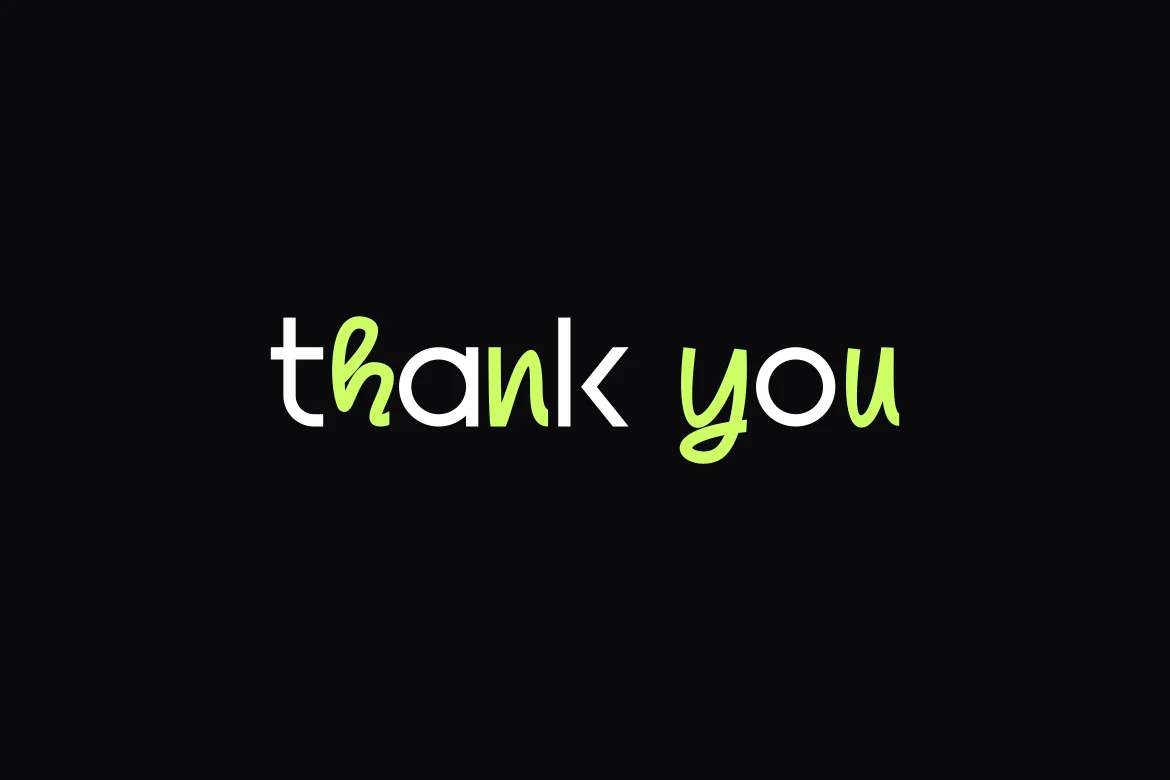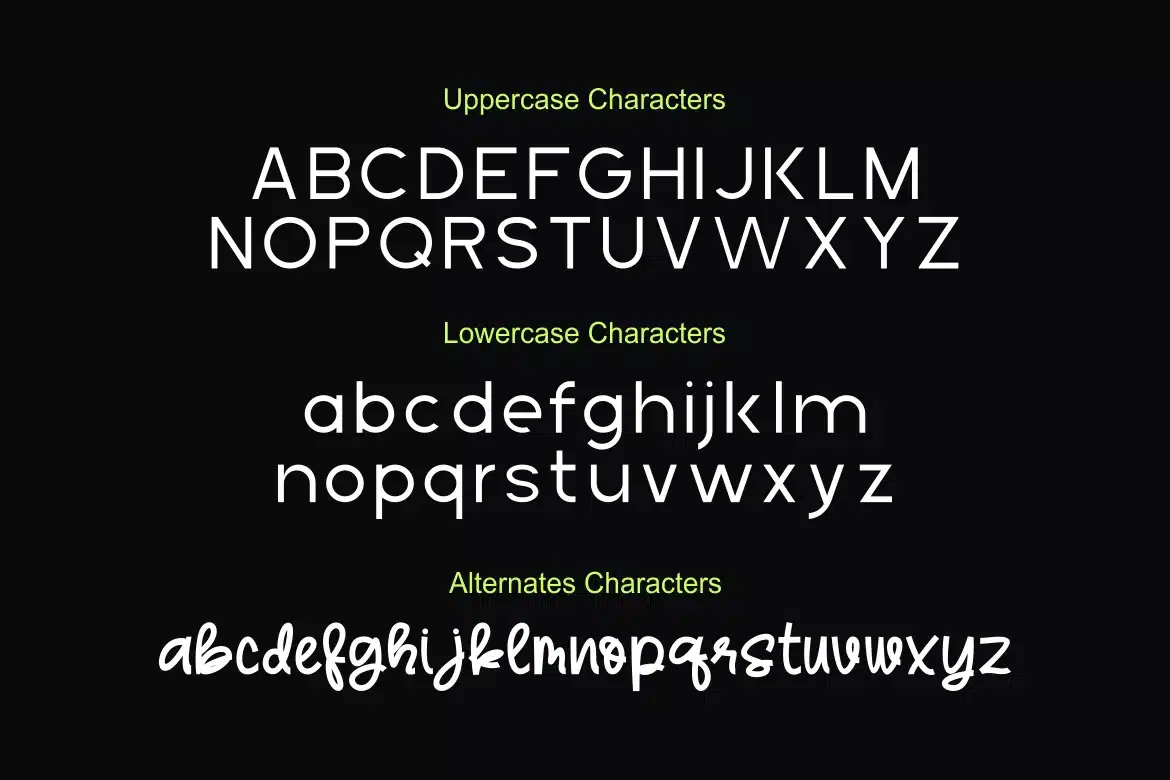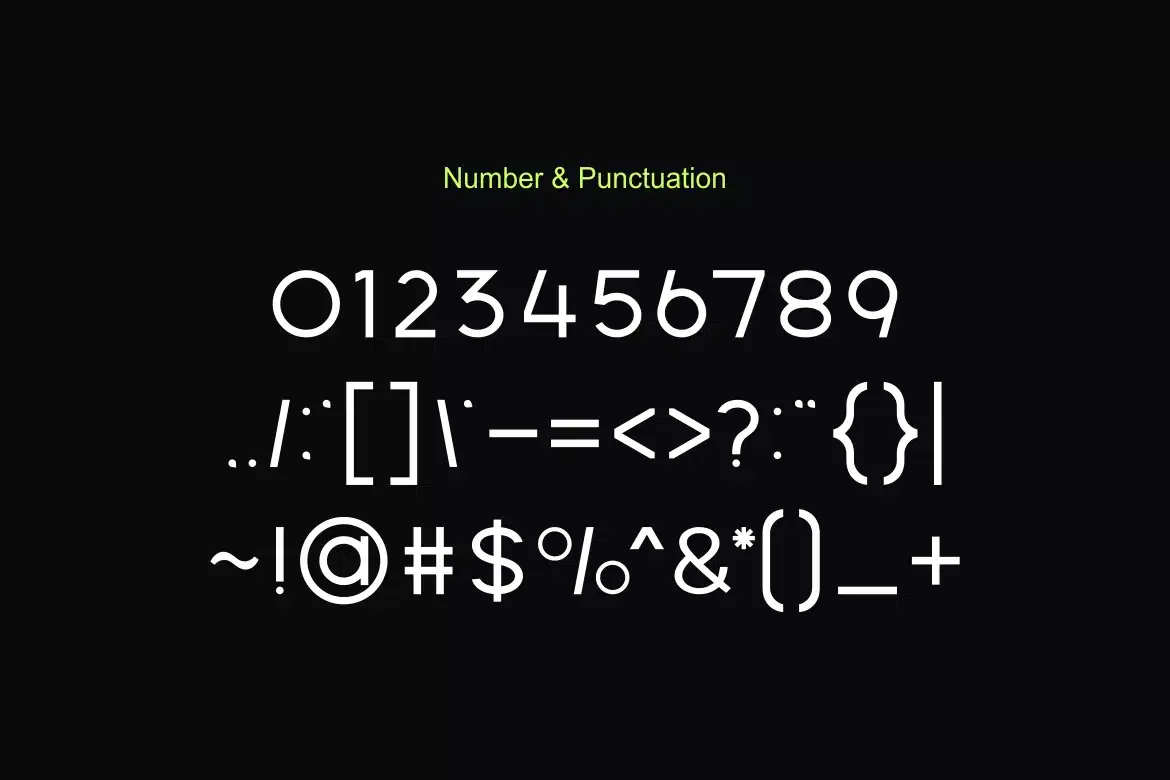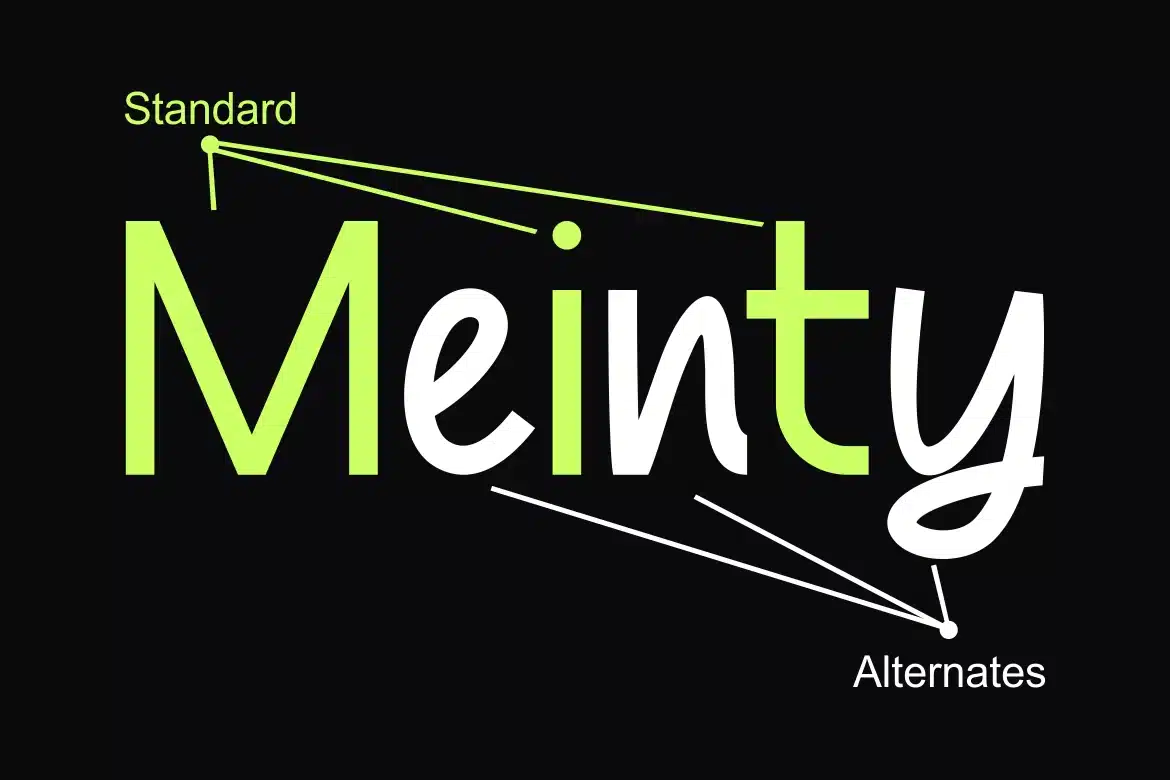
Meinty – Experimental Unique Sans Font
Introducing our new product Meinty Font - Experimental Unique Sans Font
Meinty Font - Experimental Unique Sans Font is a bold and authentic display font. The font is suitable for any branding project like logo,
t-shirt printing, esport, and many more. outstanding in a wide range of contexts.
- Meinty Uppercase
- Meinty Lowercase
- Meinty Alternates